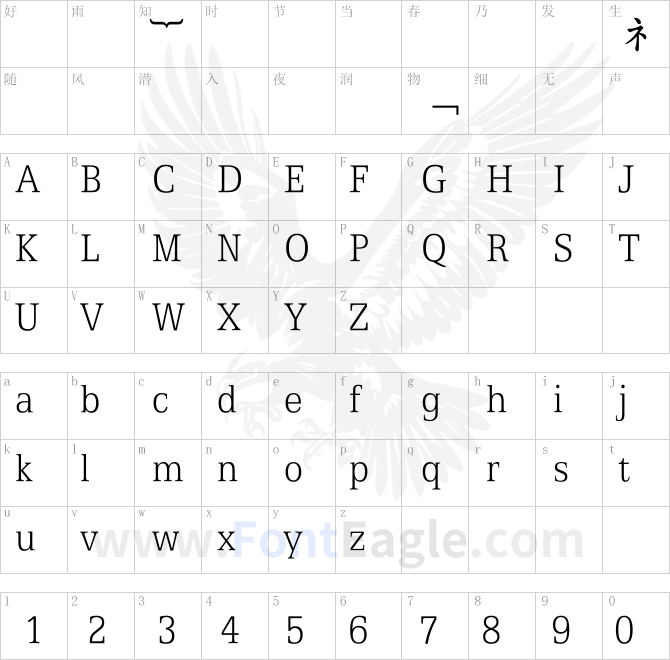
DFPFangSong-GB is a great font, widely used in graphic design, single-page menu design, poster design and other fields, and is deeply loved by designers.DFPFangSong-GB download.